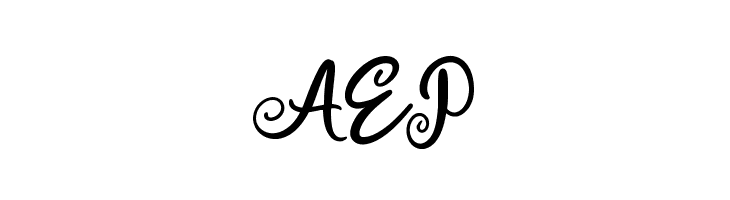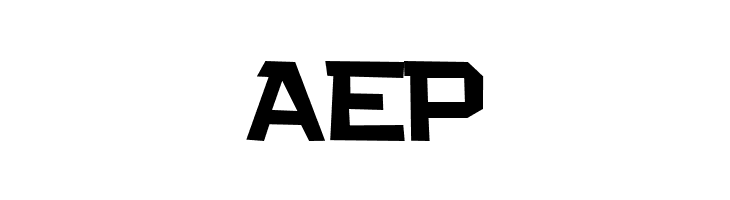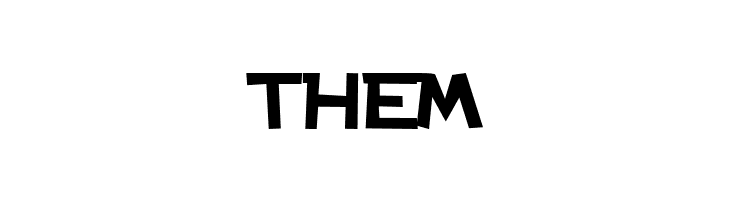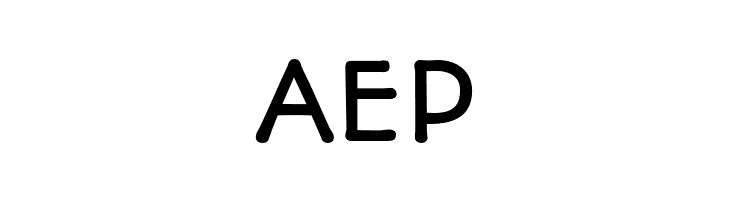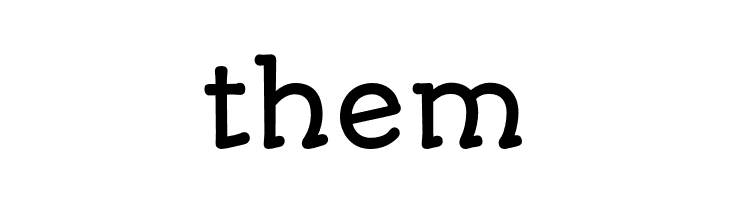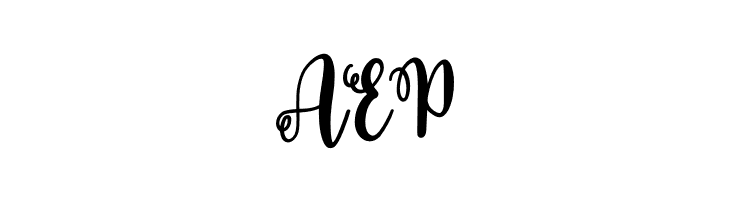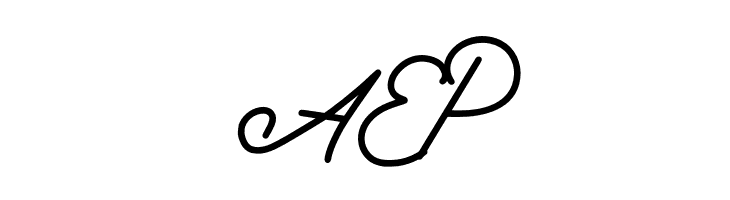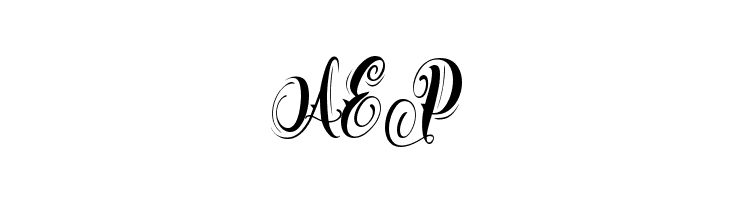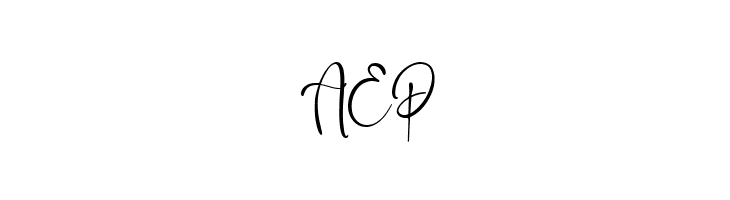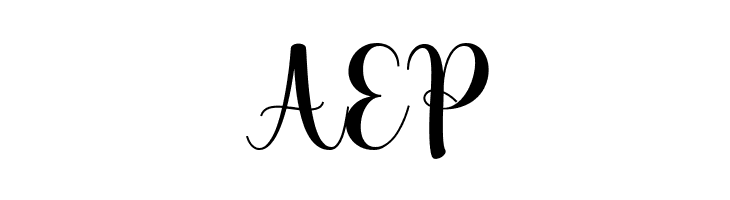
( Copyright (c) 2011 by Sorkin Type Co (www.sorkintype.com), with Reserved Font Name "Autour". ) A playful, rounded font with smooth curves and a friendly appearance. Download 816 Downloads@WebFont
( Fonts by Sorkin Type Co ) A playful, rounded font with smooth curves and a friendly appearance. Download 558 Downloads@WebFont
( Fonts by H.G. Blakeman ) A playful, textured font with a hand-drawn, sketch-like style. Download 110 Downloads@WebFont
( Fonts by Ferry Hadriyan ) A modern, elegant script font with flowing strokes and bold numerals. Download 1507 Downloads@WebFont
( Fonts by Ferry Hadriyan ) A dynamic and elegant script font with bold lowercase letters and flowing uppercase characters. Download 448 Downloads@WebFont
( Fonts by Figuree Studio - Icep Fadhil - Personal-use only. For commercial use please contact owner. ) A decorative script font with elegant swirls and flourishes. Download 58 Downloads@WebFont
( Fonts by HansCo ) A playful and whimsical script font with decorative swirls and interconnected letters. Download 480 Downloads@WebFont
( Fonts by Bearytype - Dian Hadi - Personal-use only. For commercial use please contact owner. ) A playful and whimsical script font with decorative flourishes. Download 47 Downloads@WebFont
( Fonts by Nurul Kamal - Personal-use only. For commercial use please contact owner. ) A graceful script font with elegant loops and smooth connections. Download 50 Downloads@WebFont
( Fonts by Abo Daniel Studio ) A playful and elegant script font with flowing, cursive letters. Download 1293 Downloads@WebFont
( Fonts by Zaffar Sabbir ) A playful, handwritten font with uneven strokes and a whimsical style. Download 214 Downloads@WebFont
( Fonts by Nurul Kamal - Personal-use only. For commercial use please contact owner. ) A playful and elegant script font with flowing cursive letters. Download 39 Downloads@WebFont
( www.imagex-fonts.com ) A bold, expressive brush-style font with dynamic, hand-painted strokes. Download 177 Downloads@WebFont
( Fonts by Mans Greback - www.mansgreback.com - Personal-use only. For commercial use please contact owner. ) A bold, dynamic script font with a handwritten appearance. Download 31 Downloads@WebFont
( Copyright 2011 The Bad Script Project Authors (gaslighttypefoundry@gmail.com) ) A casual, handwritten font with a playful and informal style. Download 9581 Downloads@WebFont
( Fonts by The Scriptorium - Dave Nalle ) A bold, gothic-inspired font with sharp, angular edges and dramatic flourishes. Download 496 Downloads@WebFont
( Fonts by DYSA Studio - Yusup Saputra - Personal-use only. For commercial use please contact owner. ) A dynamic and elegant script font with flowing cursive letterforms. Download 44 Downloads@WebFont
( Fonts by DYSA Studio - Yusup Saputra - Personal-use only. For commercial use please contact owner. ) A flowing, cursive script font with elegant, handwritten characteristics. Download 30 Downloads@WebFont
( Fonts by Joko Triwijayanto ) A modern script font with elegant, flowing lines and high contrast. Download 55 Downloads@WebFont
( Fonts by Zuzulgo Studio - Muhammad Zulfani - Personal-use only. For commercial use please contact owner. ) A graceful script font with fluid, connected strokes and a natural handwriting style. Download 51 Downloads@WebFont
( Fonts by Kong Font - Personal-use only. For commercial use please contact owner. ) A flowing, cursive script font with elegant loops and swashes. Download 41 Downloads@WebFont
( Fonts by Masinong Studio - Personal-use only. For commercial use please contact owner. ) A lively and elegant script font with flowing, connected letterforms. Download 33 Downloads@WebFont
( Fonts by Tan Cundrawan - cove703 - creativemarket.com/cove703 - Personal-use only. For commercial use please contact owner. ) A playful and elegant script font with fluid, connected strokes. Download 83 Downloads@WebFont
( Fonts by a Emily Spadoni - http://creativemarket.com/emilyspadoni/. Personal-use only. For commercial use please contact owner. ) A graceful script font with elegant swirls and loops, perfect for sophisticated designs. Download 6253 Downloads@WebFont
( Delafa Design - fontbundles.net/delafa ) A graceful script font with flowing, cursive letters and elegant loops. Download 183 Downloads@WebFont
( Fonts by Holydie Studio - Personal-use only. For commercial use please contact owner. ) An elegant script font with intricate swirls and flowing cursive style. Download 1546 Downloads@WebFont
( Fonts by skillyasstudio.com - Ahmad Faizin - Personal-use only. For commercial use please contact owner. ) A flowing, cursive script font with elegant, elongated letters and a natural handwriting style. Download 43 Downloads@WebFont